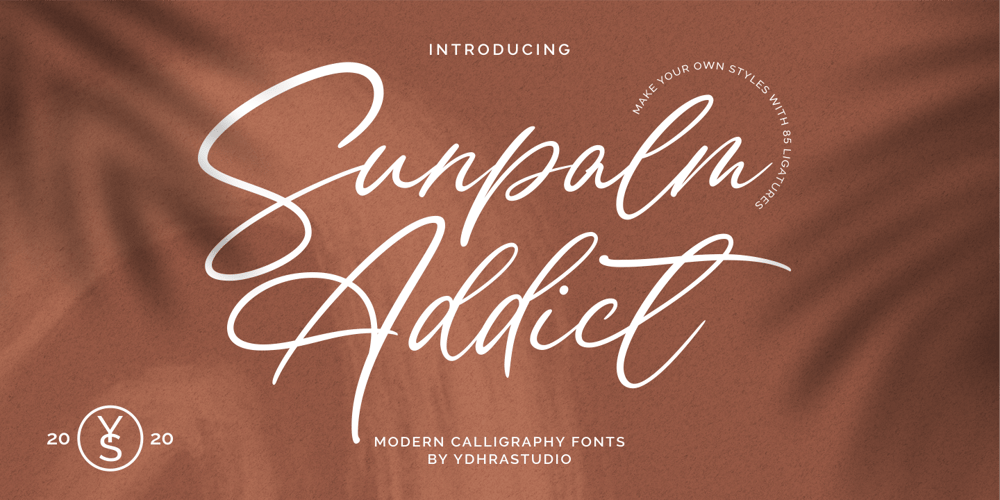
Sunpalm Addict
Sunpalm Addict font
Sunpalm Addict Font Family was designed by Yudha Rahmat Ageng and published by YdhraStudio. Sunpalm Addict contains 1 styles and family package options. Sunpalm Addict is a stylish modern calligraphy font. It’s containing upper & lowercase characters, all punctuation and numerals. Also contains 85 ligatures to help the text flow naturally For those of you who are needing a touch of elegance and modernity for your designs, this font was created for you!Sunpalm Addict is great for Invitations, Greeting Cards, Posters, Name Card, Quotes, Blog Header, Branding, Logo, Fashion, Apparel, Letter, Book, Magazine, Advertising Design, Stationery and more! Sunpalm Addict Features:- Upper and Lowercase Standard Characters, Punctuation, Numerals- OpenType features such as multiple ampersand (&) and many ligatures – Bonus Illustration – PUA Encoded Characters – Fully accessible without additional design software.- Includes a range of multilingual characters.You can access all those alternate characters by using a program that supports OpenType features such as Adobe Illustrator CS, Adobe Indesign & CorelDraw X6-X7.Guides to access all alternates glyphs : http://adobe.ly/1m1fn4YMix and match the alternate characters to add an attractive message to your design.Please, Feel free to contact me by e-mail yyudhara@gmail.com for any question about my font, Extended License document and more.